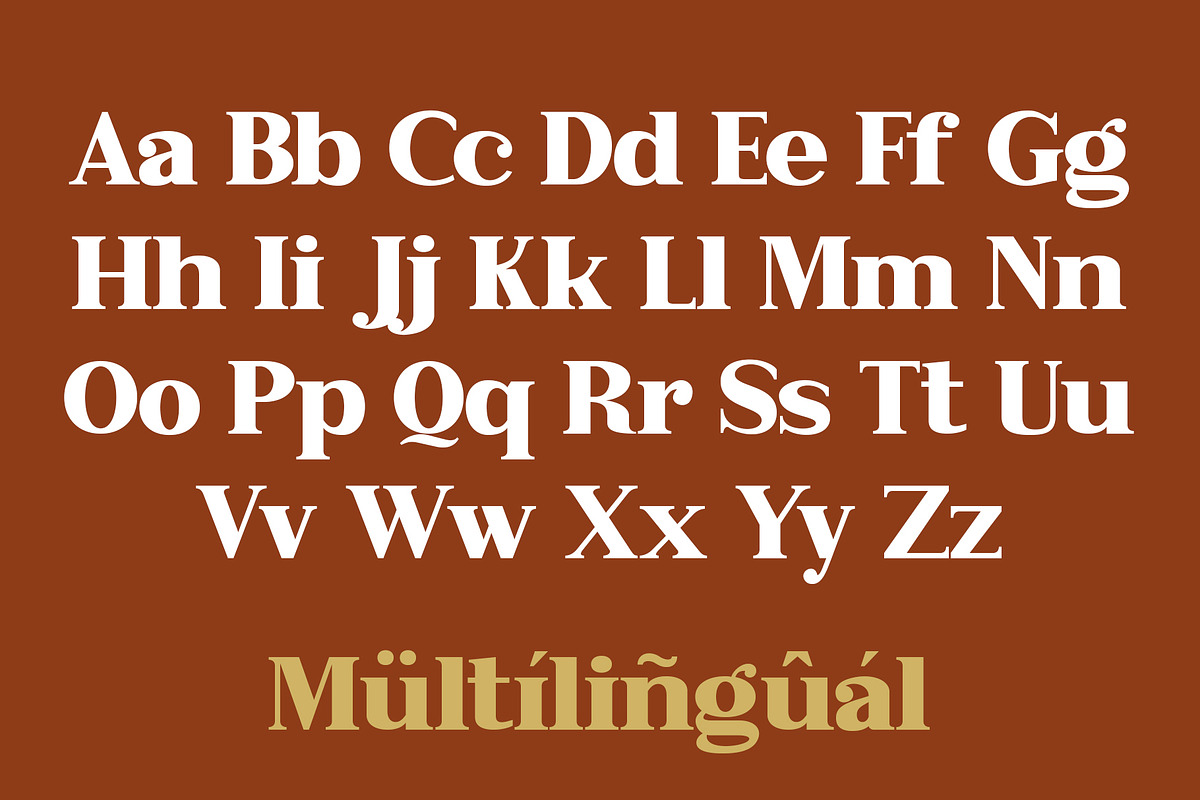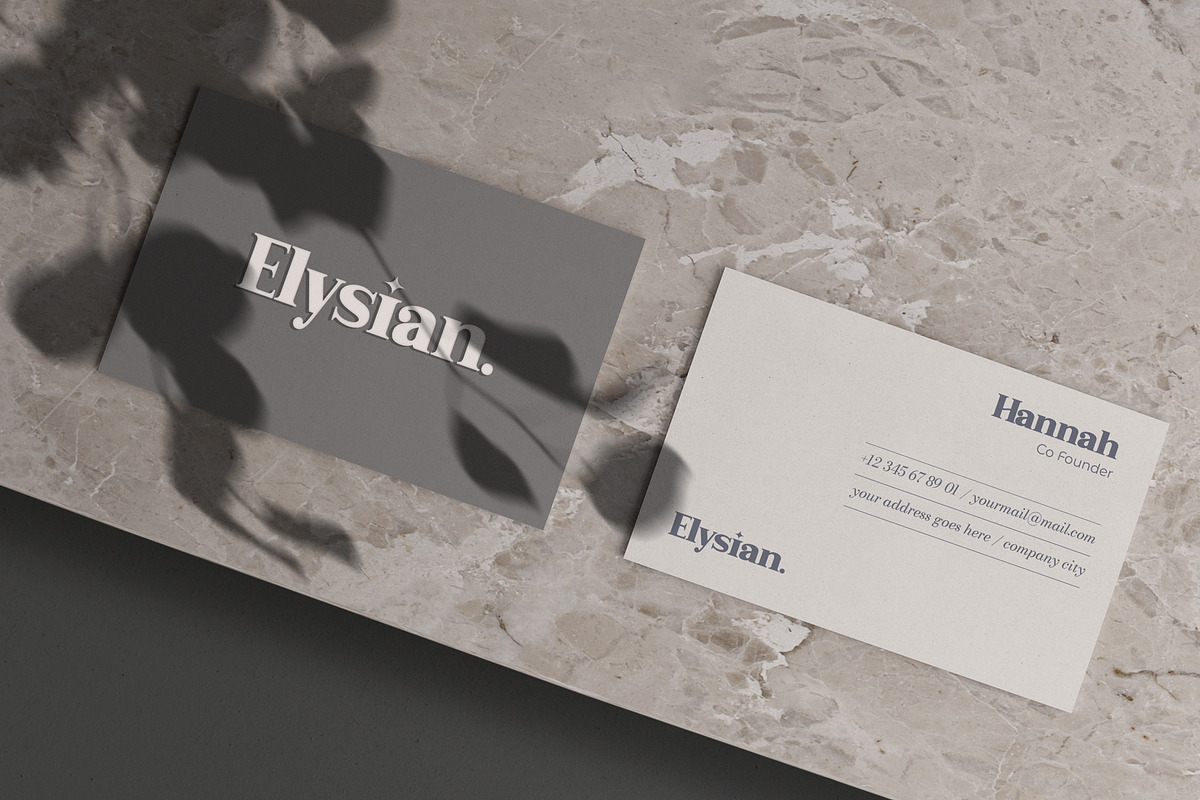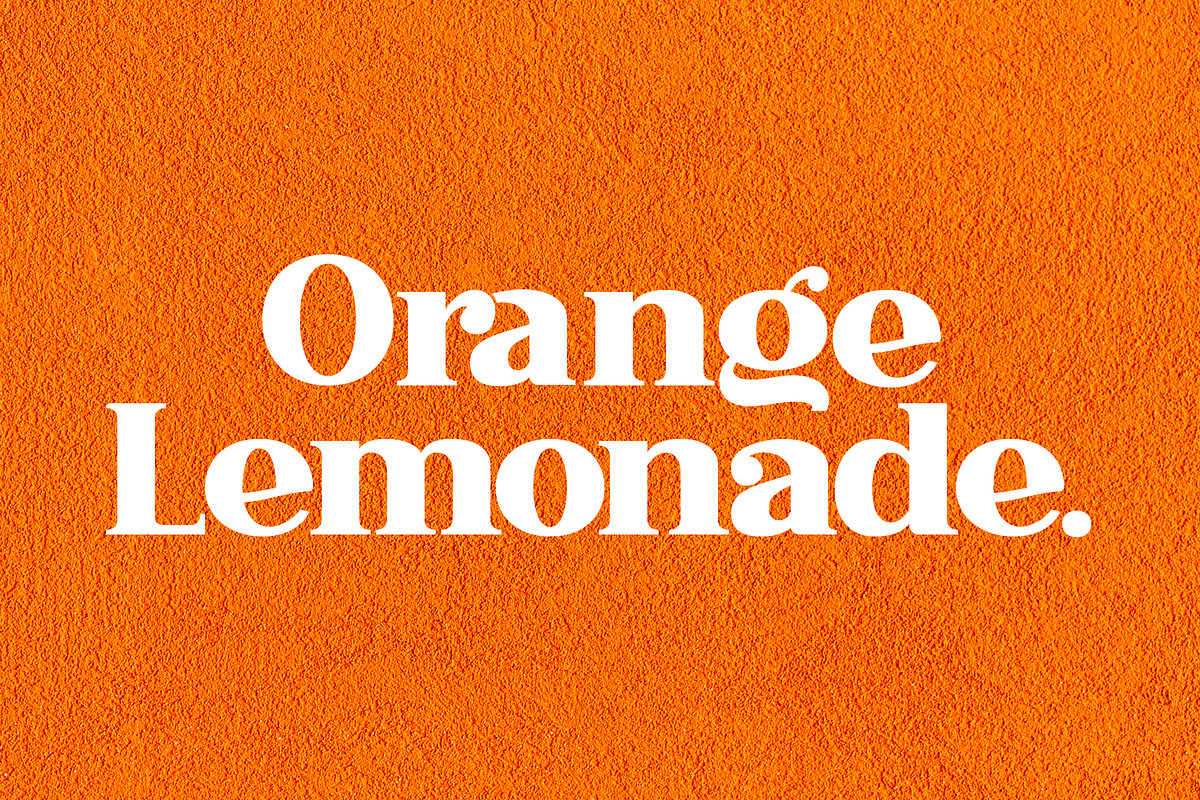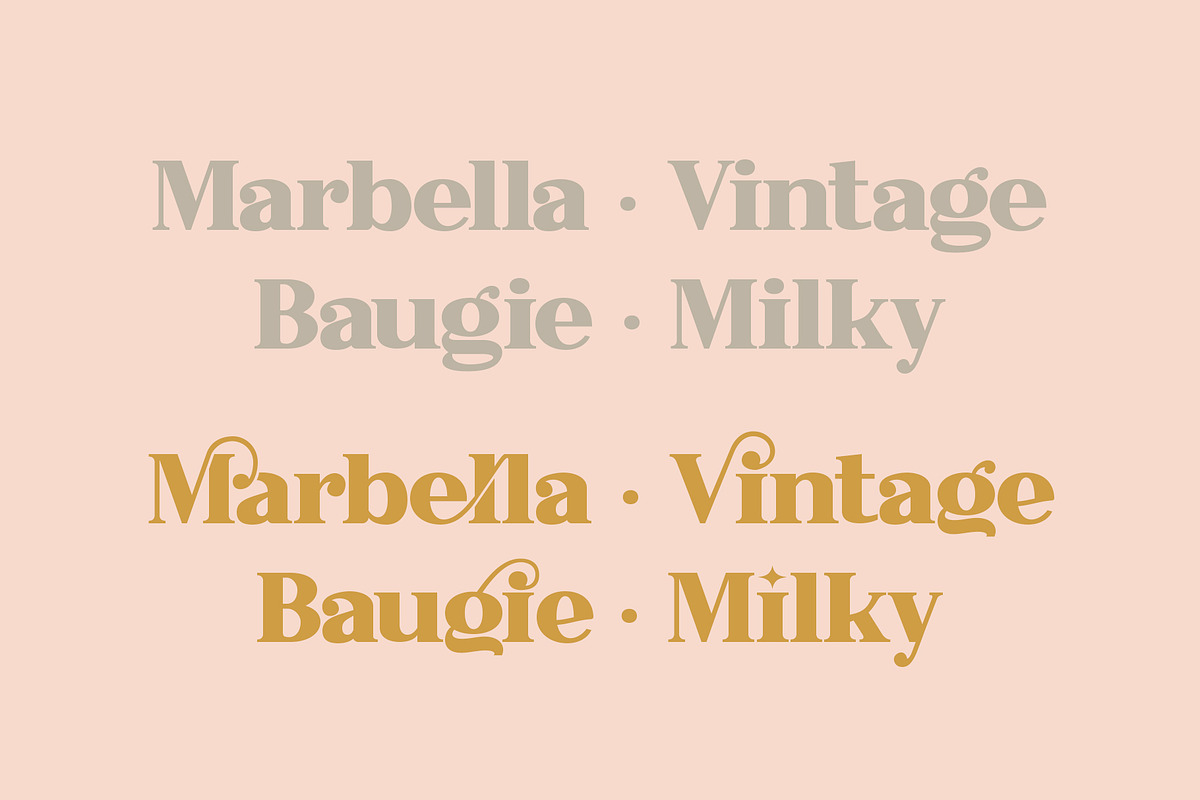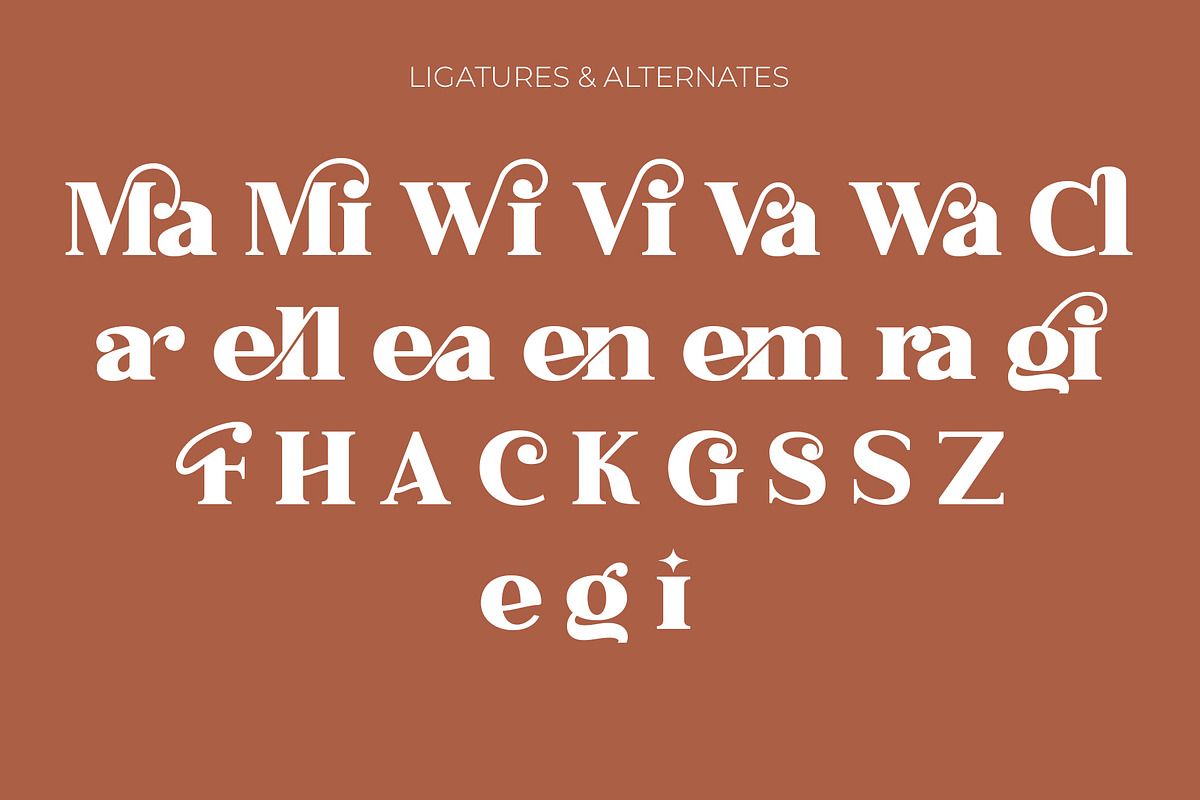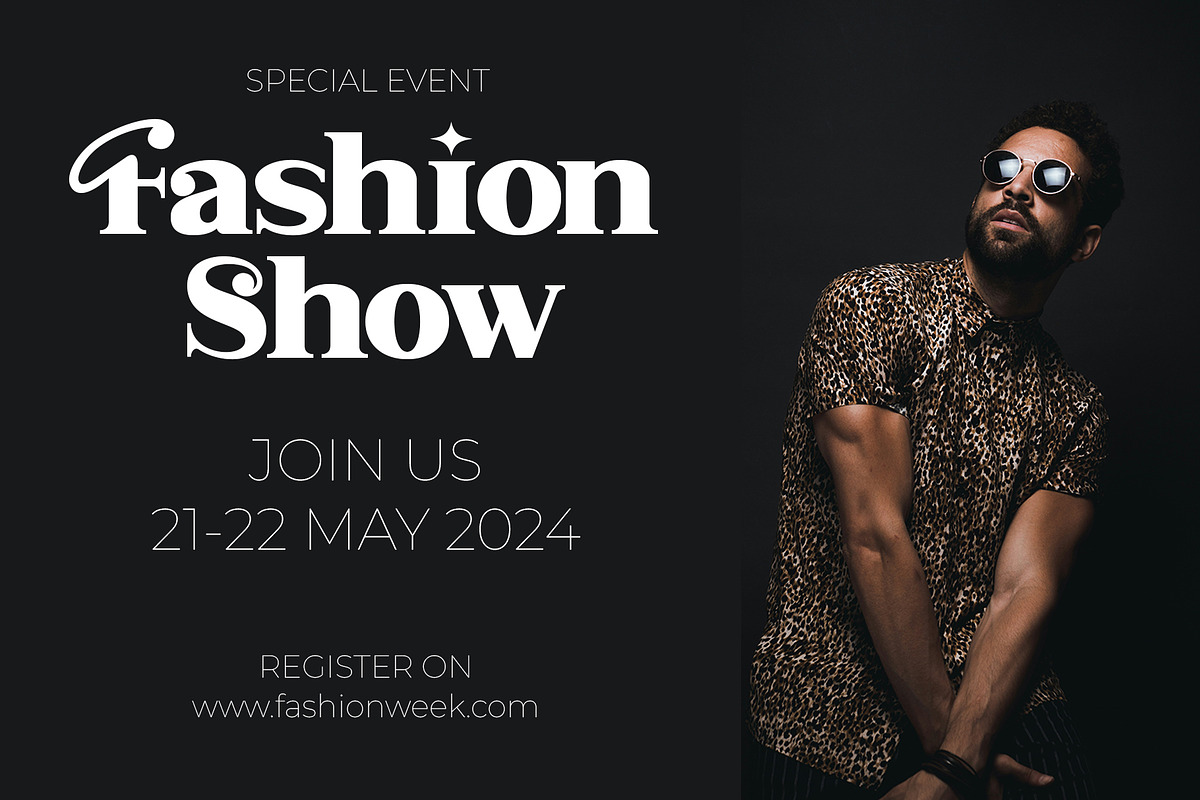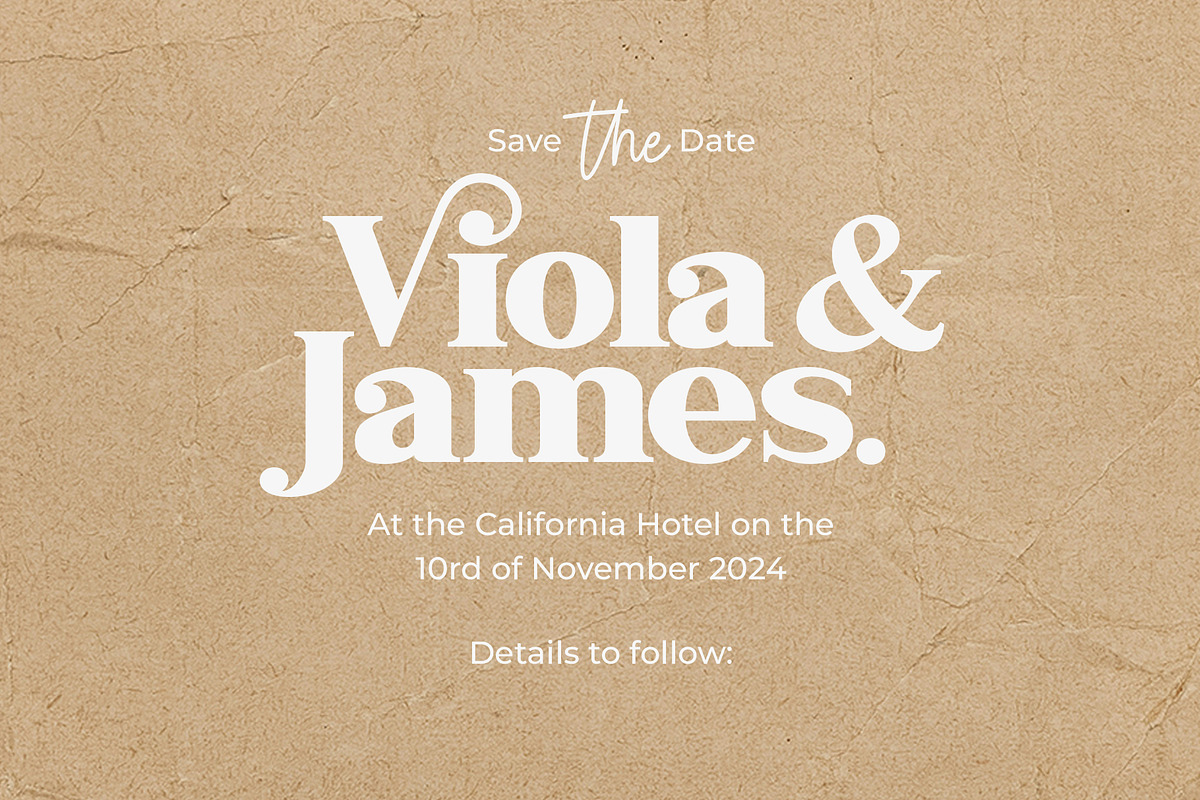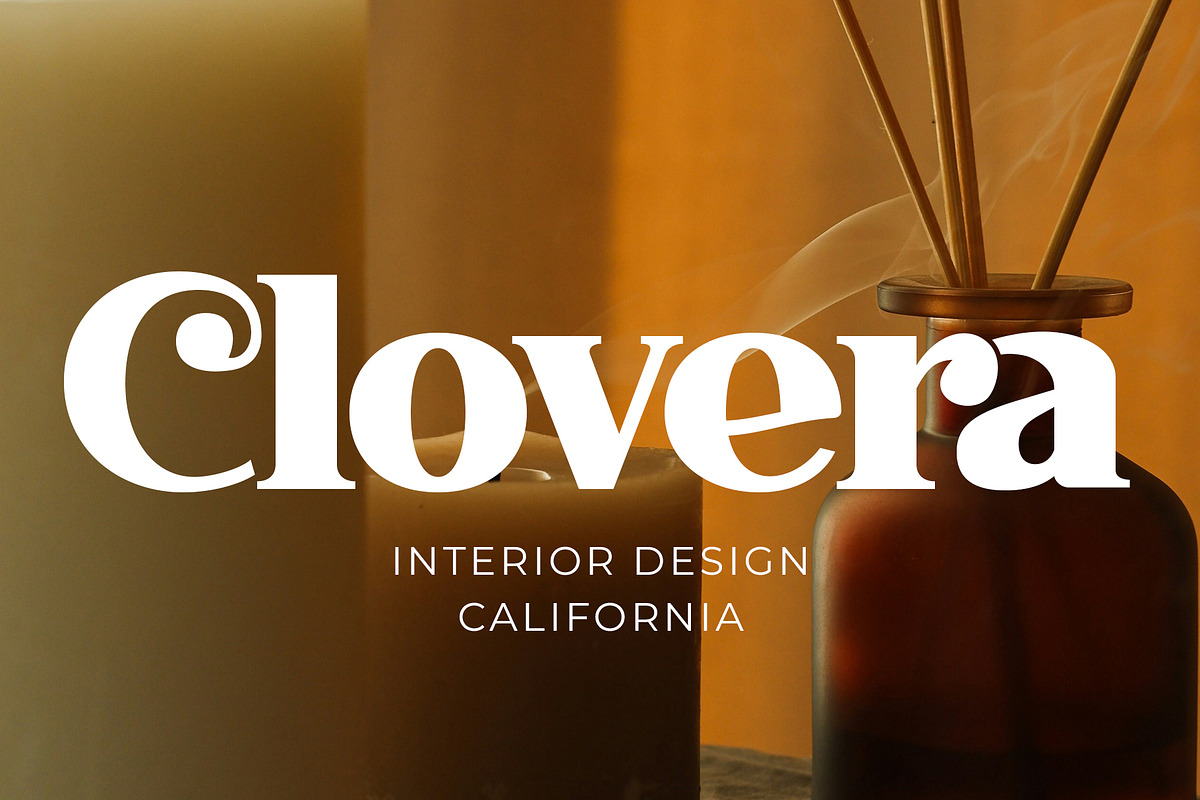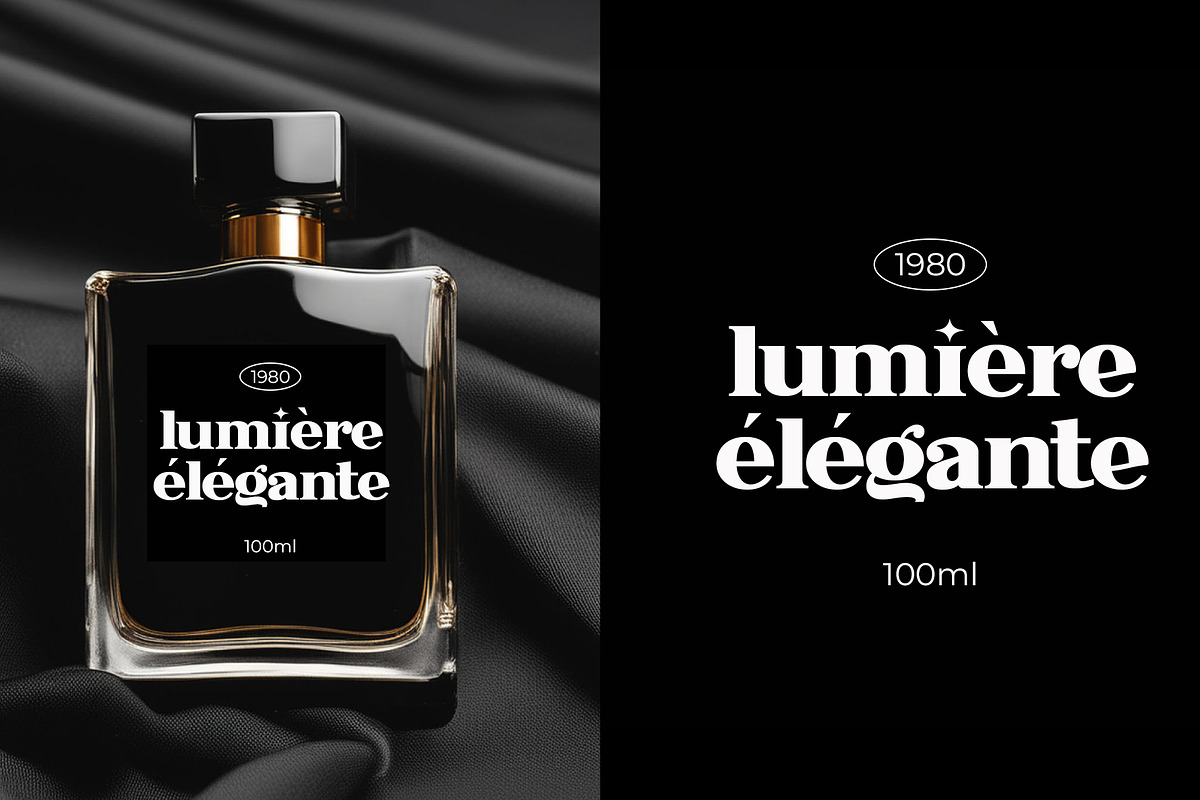
Marionte - Ligature Serif Font
Marionte is a classic font with a modern and luxurious style, many ligatures and alternatives that you can use for your designs, and this will make your design more stunning and stand out.
This serif font contains a number of ‘lowercase’ (A, E, U, I, O) and Uppercase alternate characters. this can be accessed by enabling ‘Stylistic Alternates’ in any software that supports OpenType.